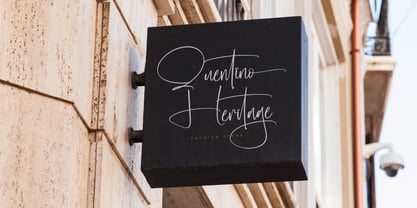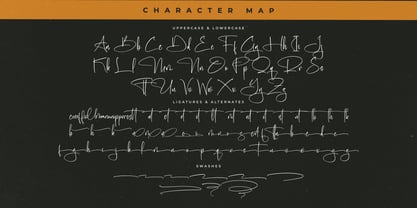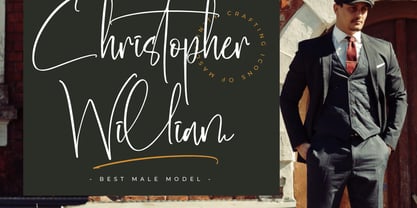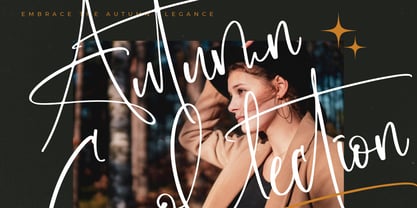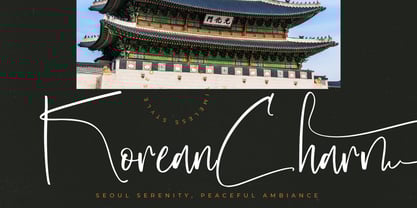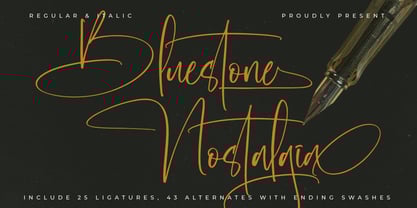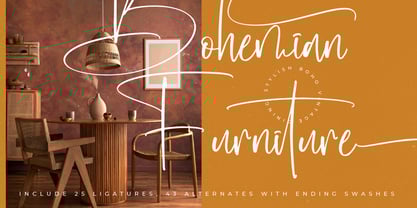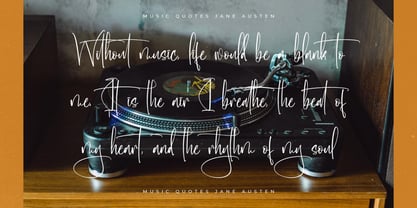
Bluestone Nostalgia
by Letterena Studios
The Bluestone Nostalgia Font Family was designed by Heru Utama Putra and published by Letterena Studios. Bluestone Nostalgia contains 2 styles and family package options. More about this family
Bluestone Nostalgia – Modern Signature Script , from Letterena, is a Luxury Script font, suitable for any projects such as: logos, branding projects, homeware designs, product packaging, mugs, quotes, posters, shopping bags, t-shirts, book covers, name card, invitation cards, greeting cards, label, photography, watermark, special events, and all your other luxury and beautiful projects that need a Luxury Script taste.